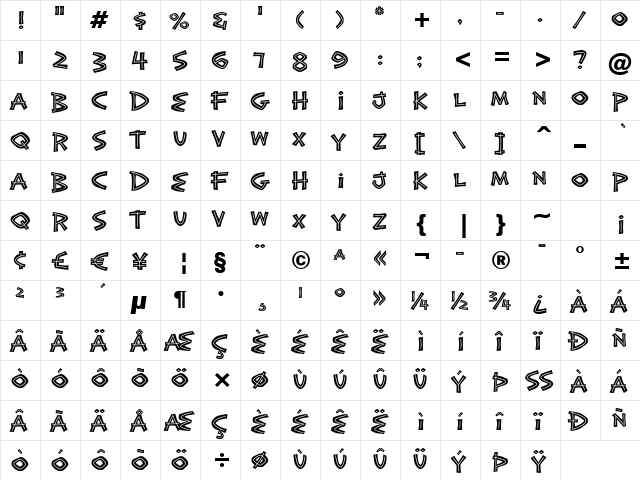
Exotic Island BTN Bold Inline Regular
Design Context for Exotic Island BTN Bold Inline Typeface
Exotic Island BTN Bold Inline is built around its visual character rather than neutral utility — its distinctive forms are designed to make an impression at display sizes. The heavy weight commands attention and anchors typographic hierarchies.
Font Pairing: Pair with a clean neutral sans-serif for body copy to let Exotic Island BTN Bold Inline's character lead without overwhelming the composition.
Pro Tip: Use Exotic Island BTN Bold Inline exclusively at display sizes — it was designed to be seen, not read at length. Let a neutral companion handle body copy.